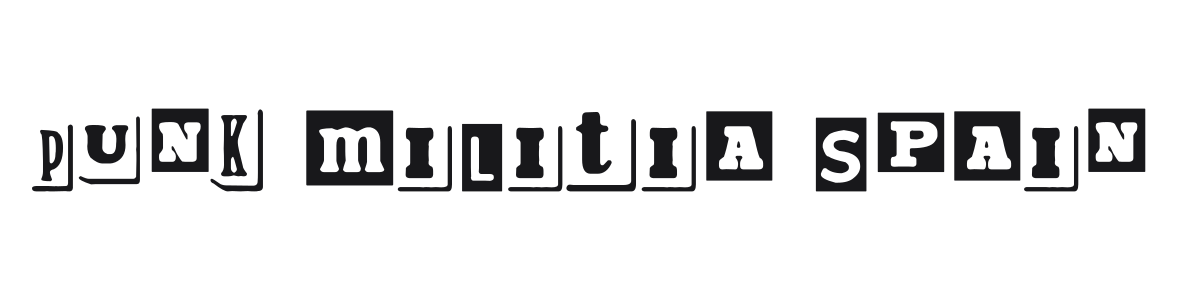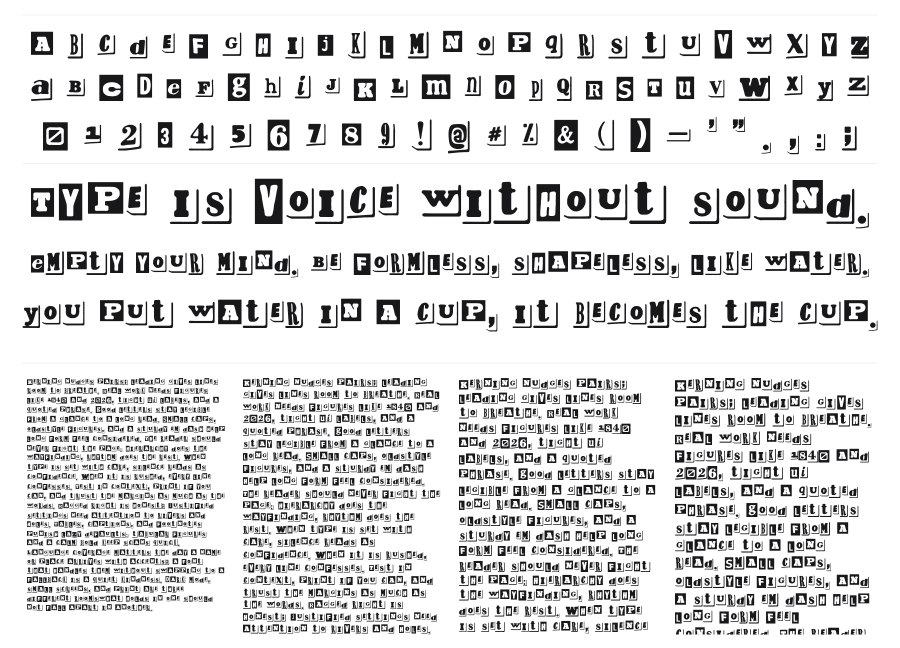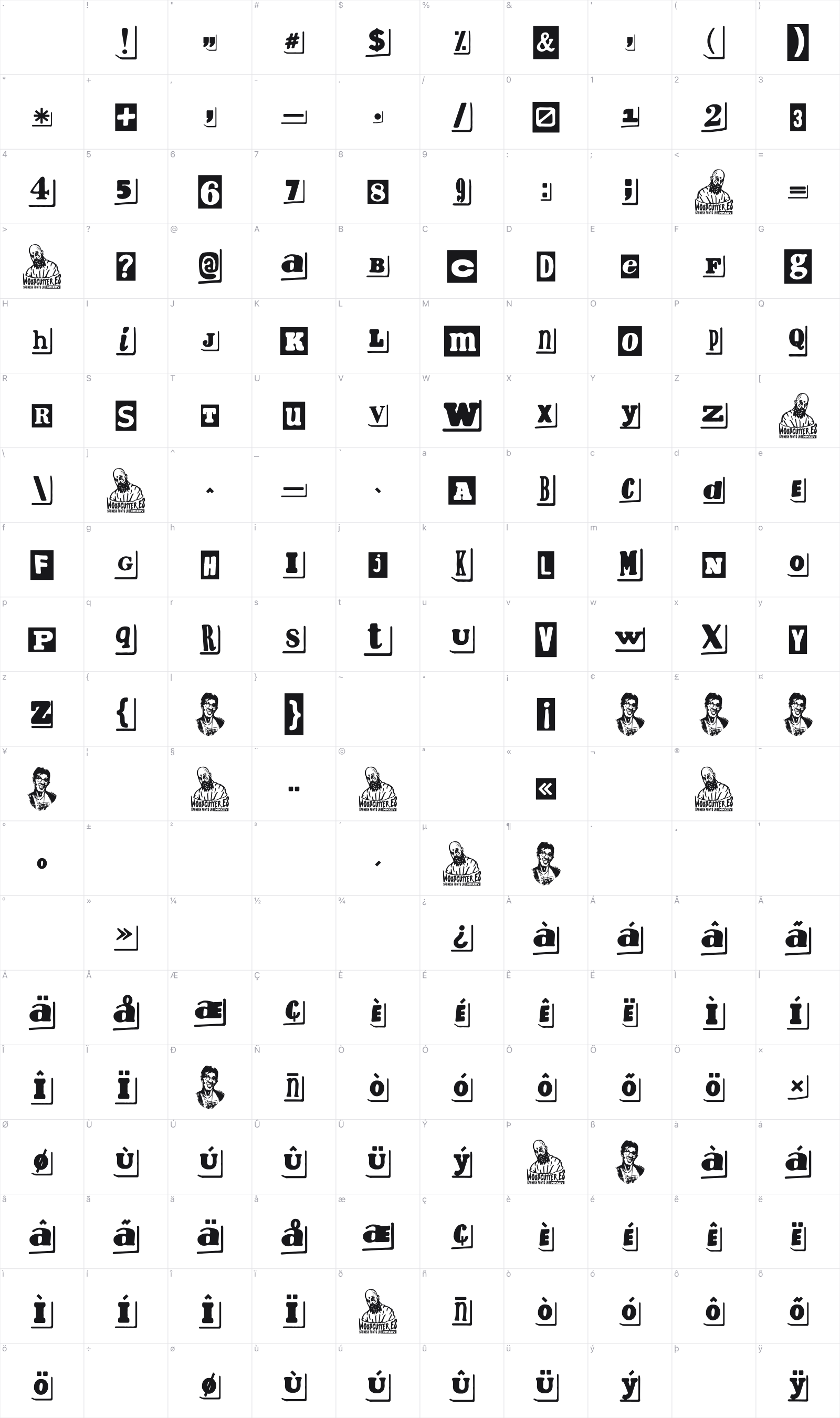
Punk Militia Spain
Punk Militia Spain is a ransom-note collage font where every character is boxed in its own rectangular tile, alternating filled and outlined blocks like a cut-up newspaper. The letters inside each tile differ in weight and style, amplifying the deliberate chaos. It channels the raw energy of 1970s punk zine culture directly onto the page.